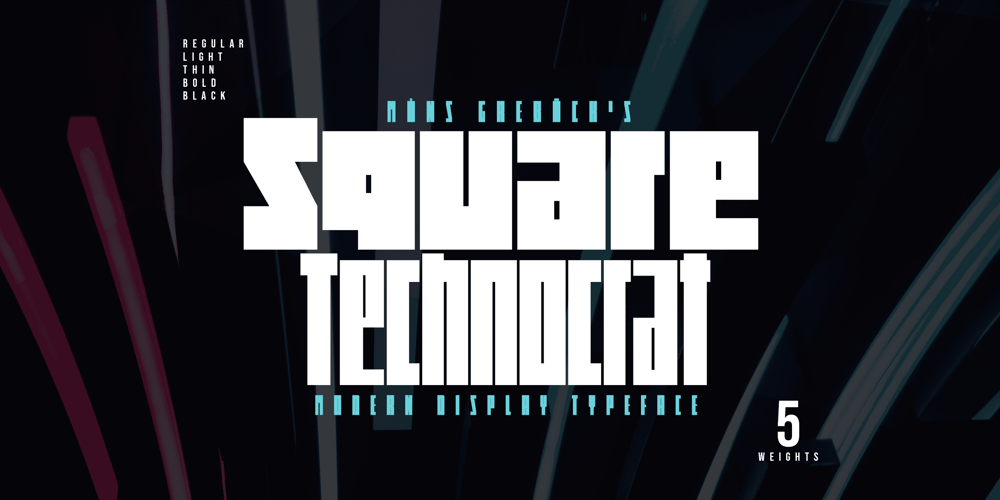
Square Technocrat
Square Technocrat font
Square Technocrat Font Family was designed by Måns Grebäck and published by Mans Greback. Square Technocrat contains 5 styles and family package options. Square Technocrat is a sharp, geometric font that embodies the essence of structure and modernity. Drawing inspiration from cube-like forms and contemporary architecture, this font family is perfect for designs that require a strong, stable presence.The Square Technocrat font family comes in five weights: Thin, Light, Regular, Bold, and Black, giving you a wide range of options for creating impactful designs that demand attention.The font is built with advanced OpenType functionality and has a guaranteed top-notch quality, containing stylistic and contextual alternates, ligatures, and more features; all to give you full control and customizability. It has extensive lingual support, covering all Latin-based languages, from Northern Europe to South Africa, from America to South-East Asia. It contains all characters and symbols you’ll ever need, including all punctuation and numbers.